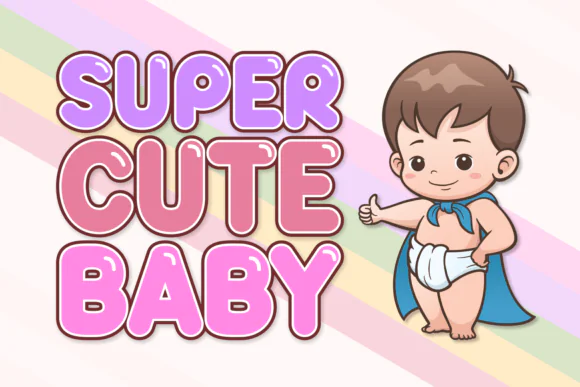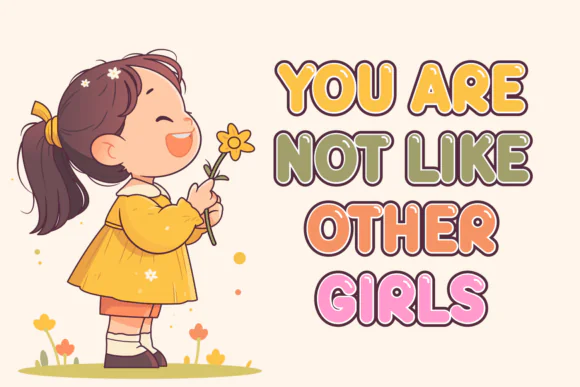
Create bright, happy, and playful designs with Famous Bubble Font, a sweet and fun display typeface designed with rounded corners and a friendly visual personality. Its soft bubble-inspired style gives every project a cheerful, approachable, and expressive look, making it perfect for creative designs that need warmth and joy.
Famous Bubble Font is a versatile choice for designers, crafters, small business owners, content creators, and print-on-demand sellers. Its natural and unique style works beautifully for kids’ designs, social media posts, branding projects, comic titles, t-shirt graphics, stickers, posters, invitations, product packaging, digital artwork, and fun promotional designs.
With its expressive and colorful character, this font helps your text stand out while keeping the design friendly and easy to enjoy. Whether you are creating a cute children’s graphic, a playful brand logo, a comic-style headline, or a cheerful social media design, Famous Bubble Font adds a bright and memorable touch to your artwork.